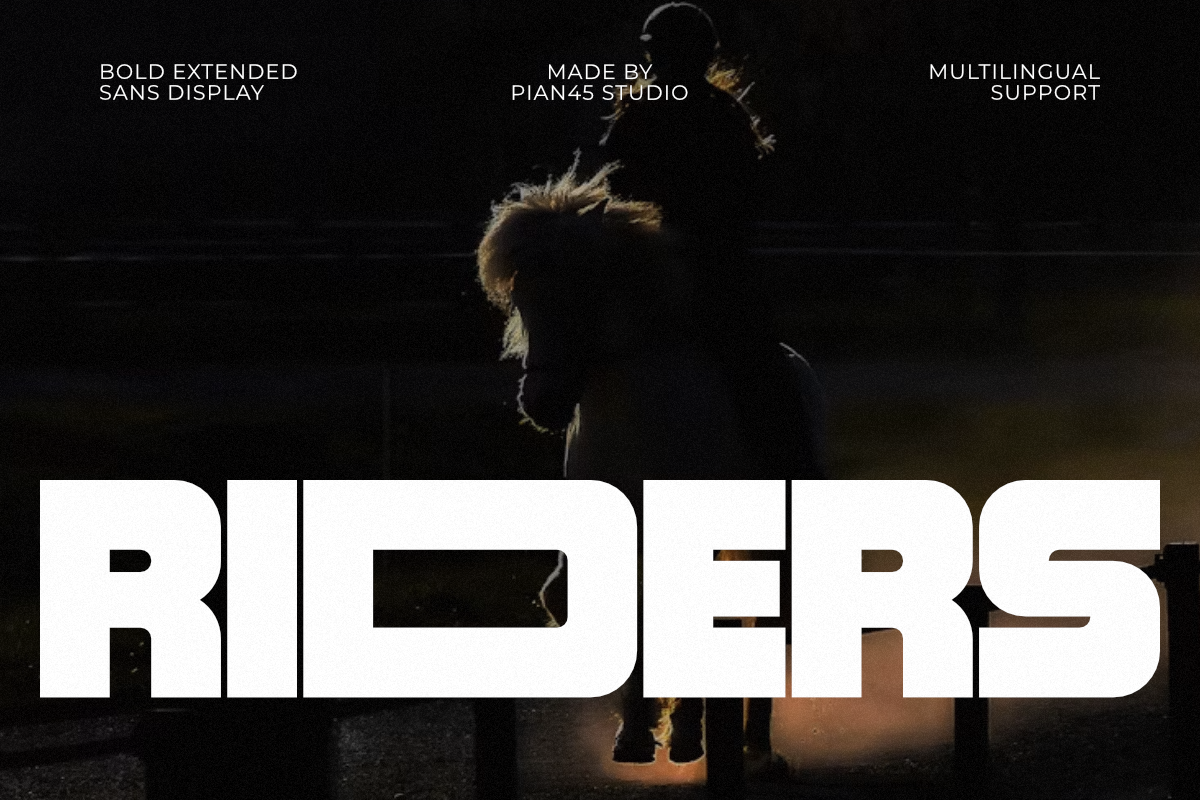
Riders - Bold Extended Display Font
Riders is a powerful, wide-stretched Bold Extended Sans Display font engineered to deliver maximum visual dominance, speed, and modern aesthetic power. Designed with ultra-wide horizontal letterforms, heavy blocky structures, clean geometric cuts, and full multilingual support, this all-caps typeface is built for automotive branding, equestrian sports logos, biker gang apparel, esports graphics, and high-octane streetwear lines. Its massive horizontal presence and commanding visual weight ensure unmatched legibility, making it the ultimate choice for high-impact headlines, event banners, custom t-shirt designs, and digital marketing materials.